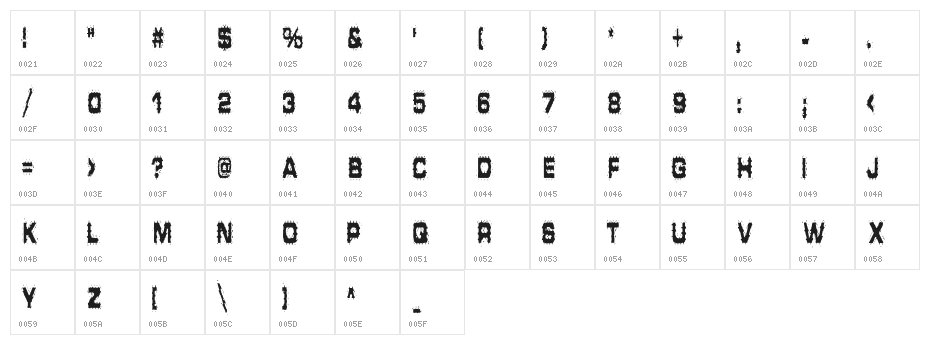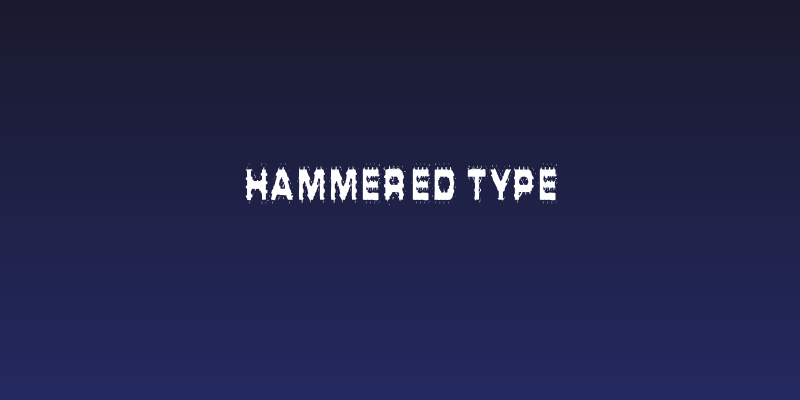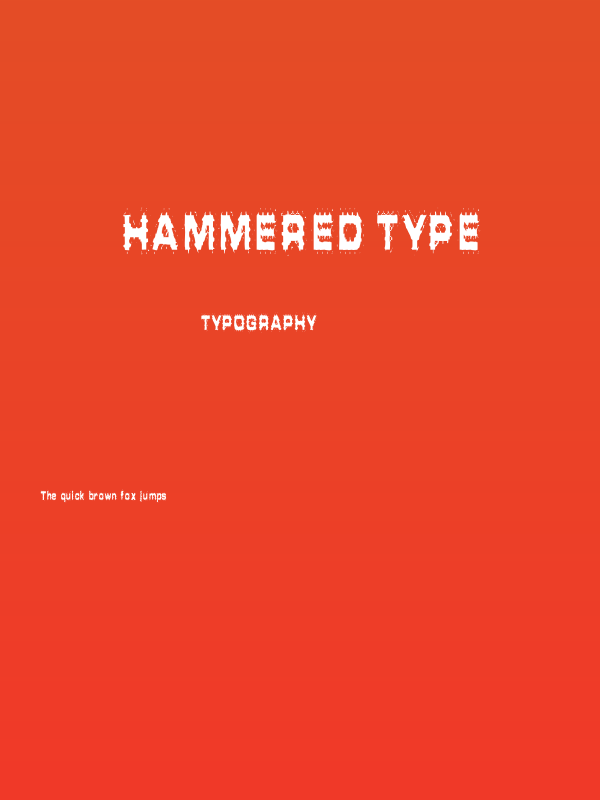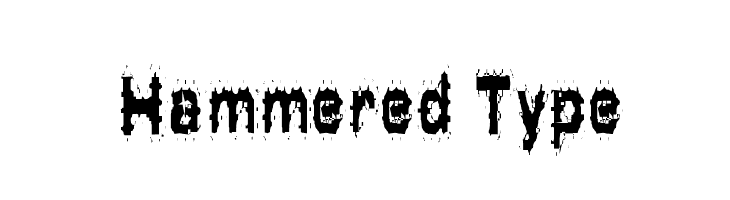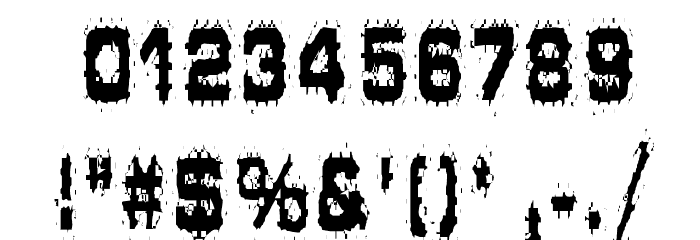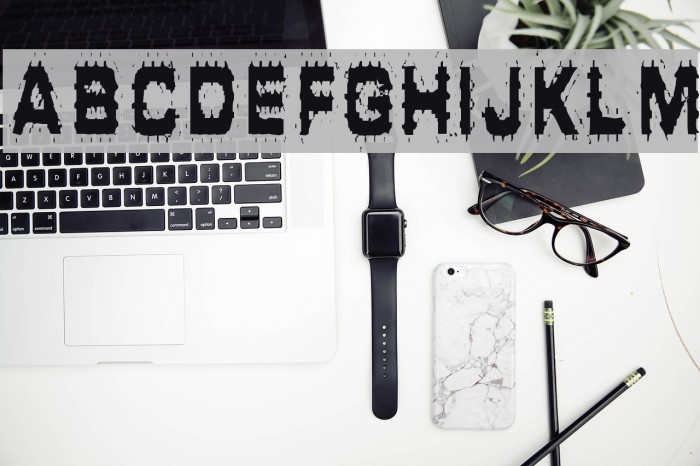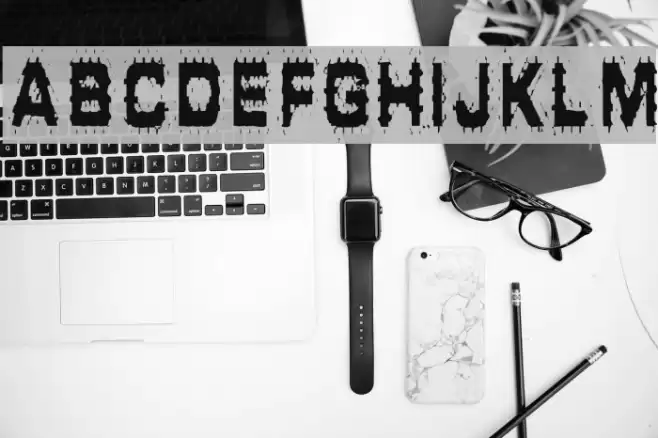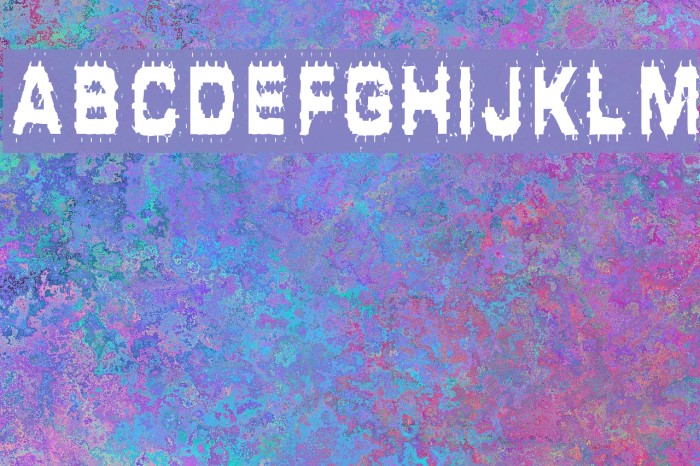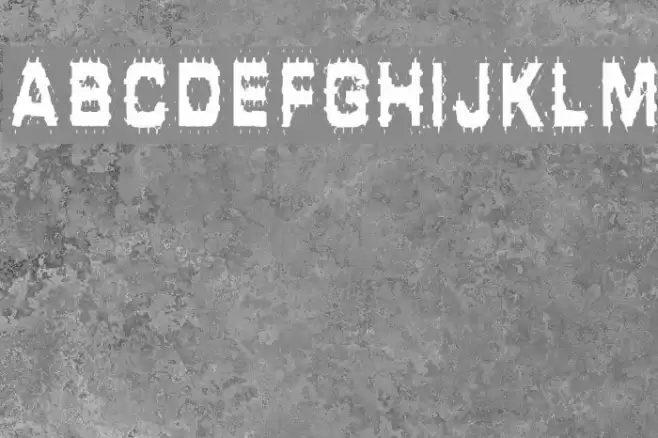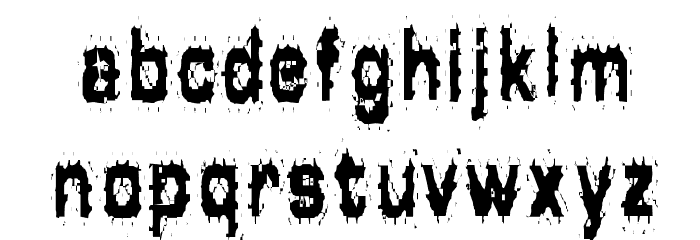
Hammered Type Font
✎ Broken
| Kategorien | Broken |
| Gesamtstil | Industrial, Vintage |
| Vorgeschlagene Projekte | Ideal for posters, album covers, branding for industrial or vintage-themed products, and any design needing a bold, textured typeface. |